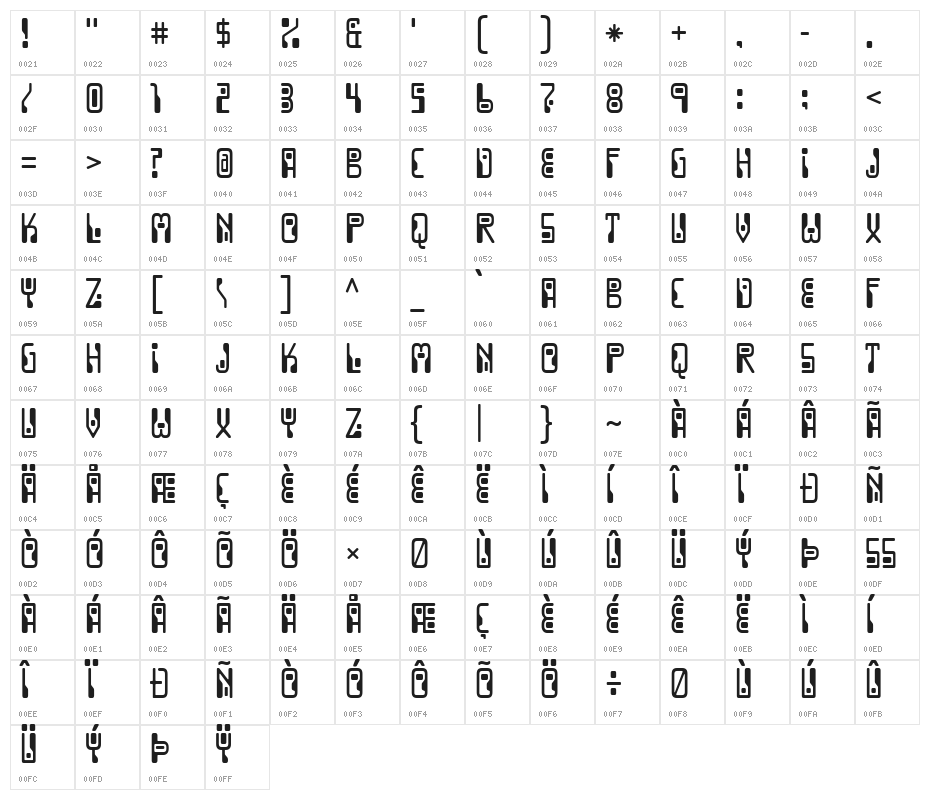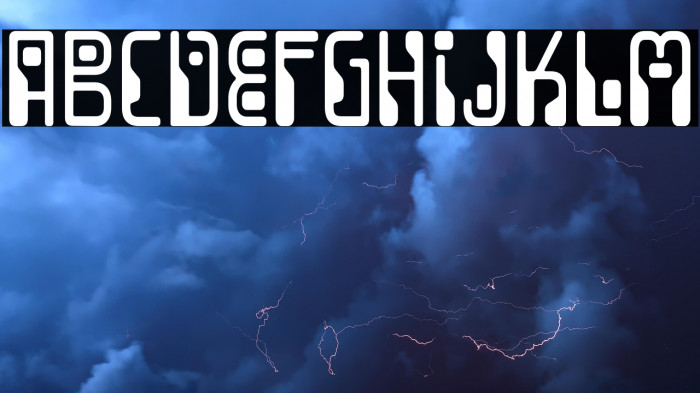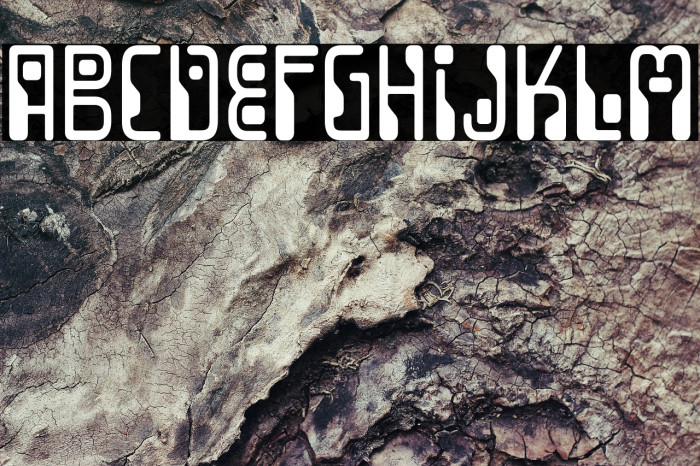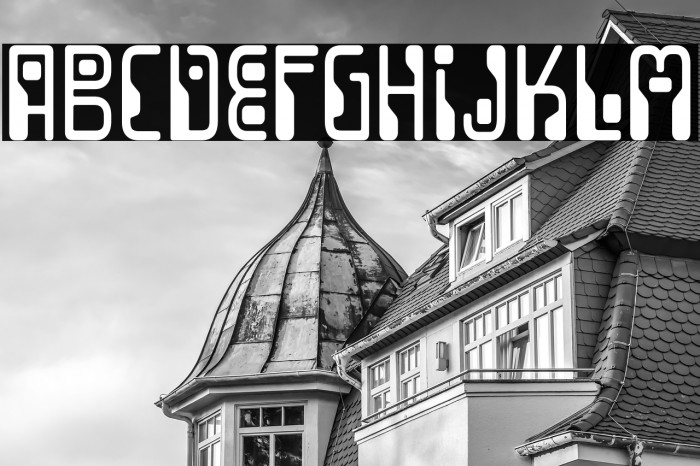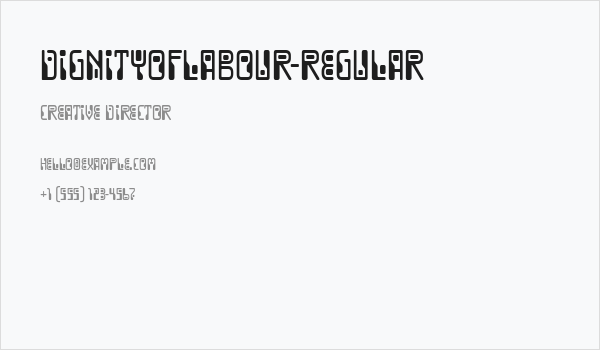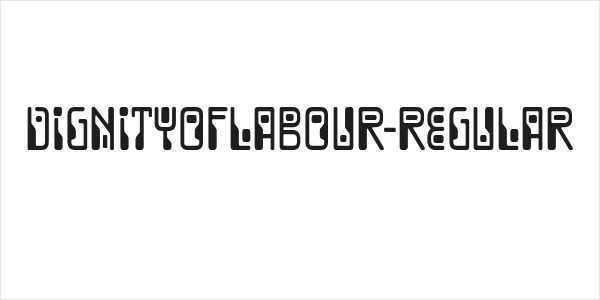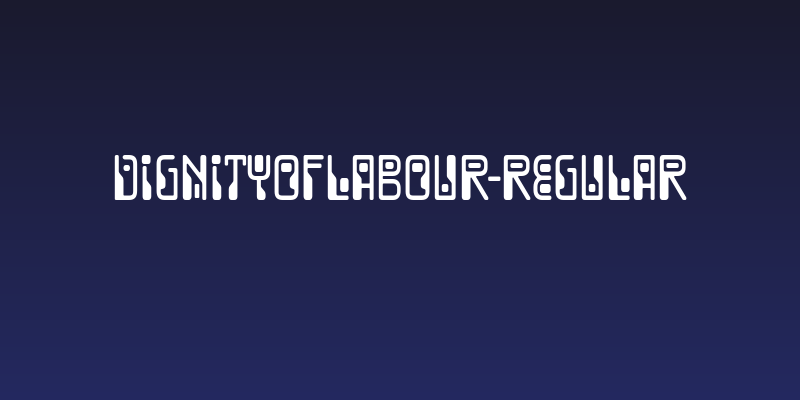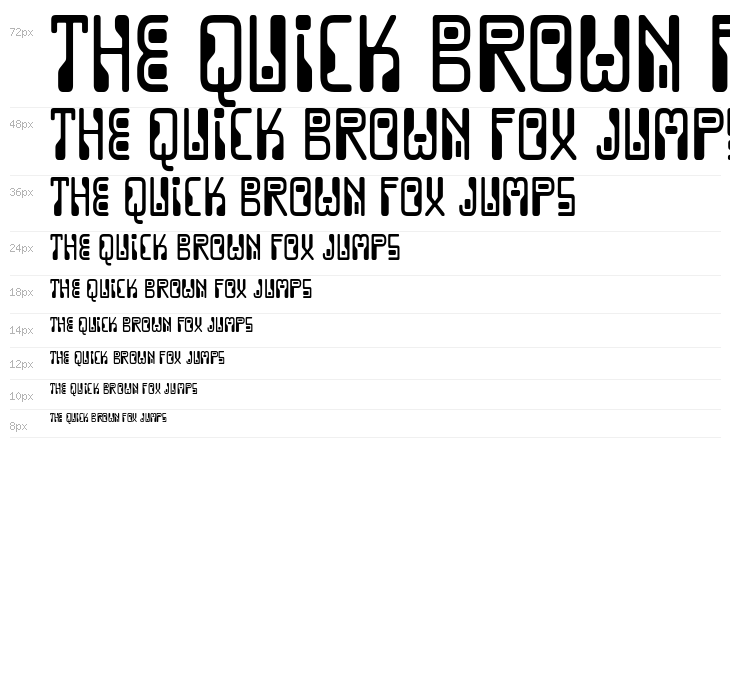
DignityOfLabour-Regular Font
DignityOfLabour-Regular Description
This font features a bold, geometric design with a modern and futuristic aesthetic. The characters are constructed with thick strokes and rounded edges, creating a sense of solidity and strength. The uppercase and lowercase letters share a consistent style, with unique cutouts and angles that add visual interest. The numerals and special characters maintain the same bold and structured appearance, ensuring uniformity across all glyphs. The font's distinct look makes it suitable for attention-grabbing designs.